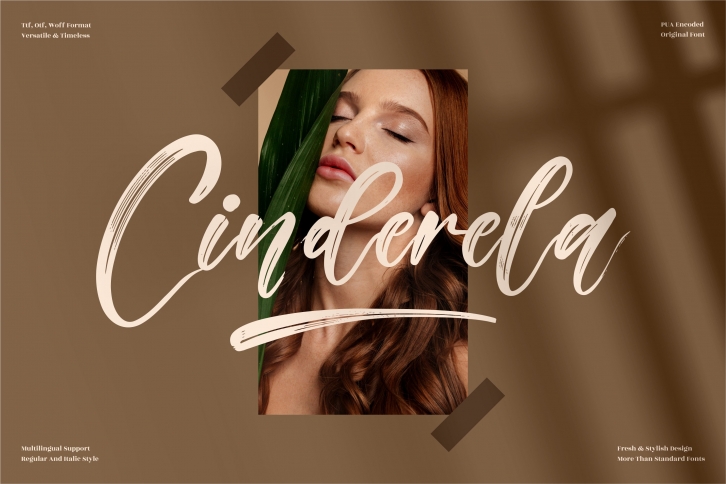
Cinderela is a flowing and brushed script font. It has beautiful and well balanced characters and as a result, it matches a wide pool of designs. Add it to your most creative ideas and notice how it makes them come alive!